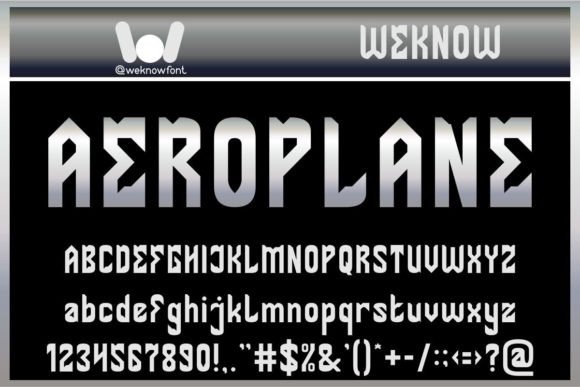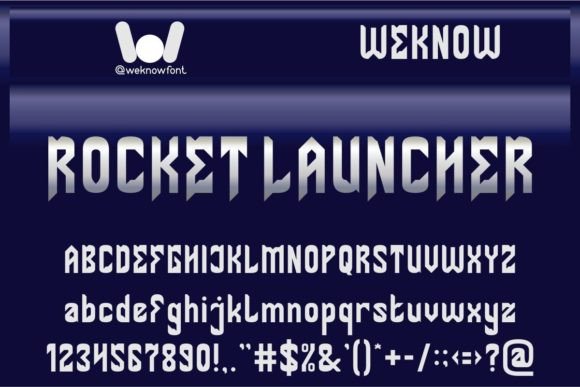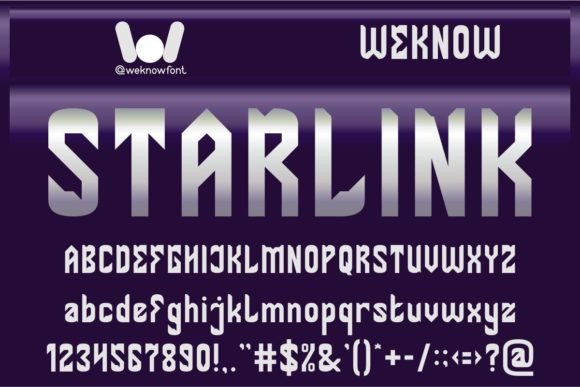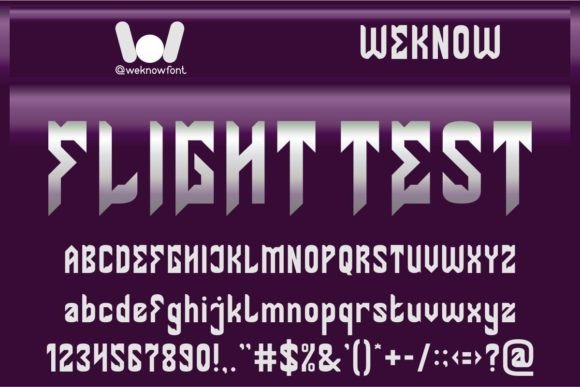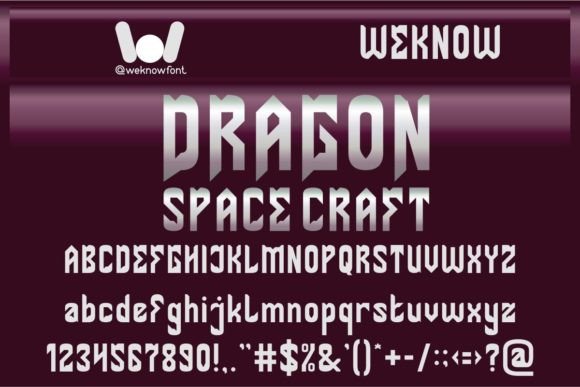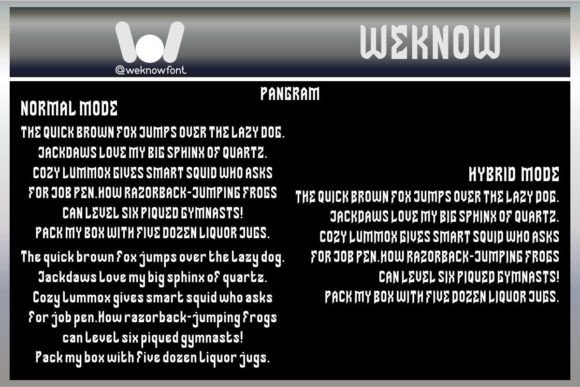
The Ultimate Guide to Aeroplane Font: Elevate Your Designs with a Techno-Sci-Fi Twist
I’ll never forget the time I was working on a futuristic game project, and my client asked for a logo that screamed “space-age tech.” I scoured the internet for the perfect font, and that’s when I stumbled upon Aeroplane. It was love at first sight! 🚀 In this article, I’ll share my experience with Aeroplane, an incredible techno-sci-fi metal display font that’s perfect for designers, crafters, and creative hobbyists.
Aeroplane Font: The First Impression
Aeroplane is a stunning display font that’s designed to make a statement. Its techno-sci-fi aesthetic is reminiscent of futuristic landscapes, making it ideal for projects that require a bold, edgy look. Whether you’re working on a logo, logotype, headline, or corporate identity, Aeroplane is sure to impress.
Honest Review: What I Love and What I Don’t
- 💥 **Unique and eye-catching design**: Aeroplane’s futuristic look is unlike any other font out there.
- ✅ **Highly versatile**: Use it for logos, headlines, posters, or any other project that needs a bold, techno-sci-fi twist.
- 🎨 **Customizable**: With OpenType features and glyphs, you can experiment with different styles and variations.
- ⚠️ **Limited legibility**: Aeroplane’s futuristic design can make it difficult to read at small sizes or in long blocks of text.
- 🤯 **Steep learning curve**: With so many OpenType features and glyphs, it may take some time to get familiar with the font.
The Designer Inspiration Behind Aeroplane
Aeroplane was designed by a team of creatives who wanted to capture the essence of futuristic technology. Inspired by classic sci-fi movies and video games, they crafted a font that’s both bold and futuristic. Whether you’re a designer, crafter, or hobbyist, Aeroplane is sure to spark your creativity.
| Author | weknow |
Q: What is the best way to use Aeroplane for a logo?
A: For a logo, try pairing Aeroplane with a simple shape or icon to create a bold, memorable design.
Q: Can I use Aeroplane for body text?
A: While Aeroplane is stunning as a display font, it’s not ideal for body text due to its limited legibility. Use it for headlines or titles instead.
Q: Is Aeroplane suitable for print designs?
A: Absolutely! Aeroplane looks great in print, especially on posters, flyers, or business cards.
Q: Can I use Aeroplane for web designs?
A: Yes! Aeroplane is perfect for web designs, especially for headings, titles, or buttons.